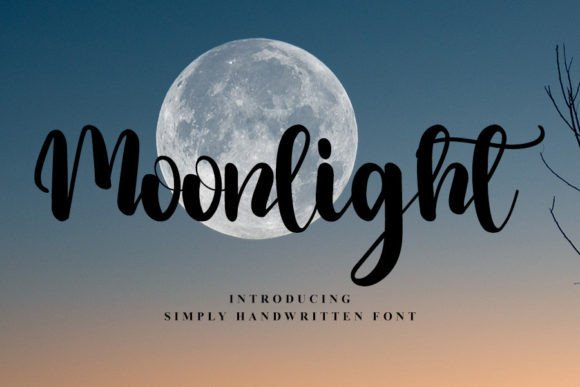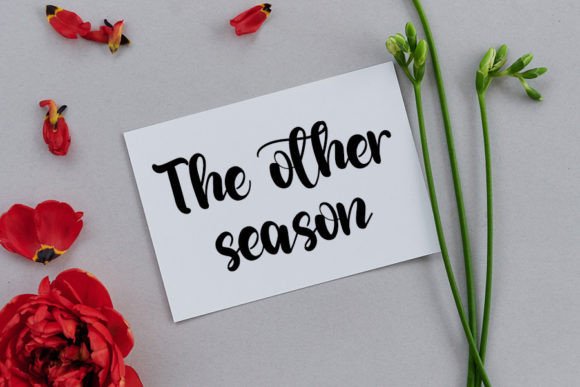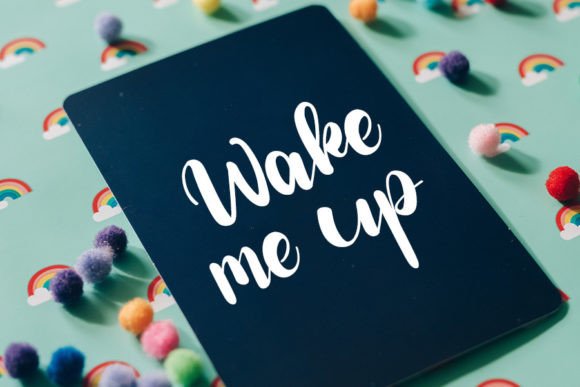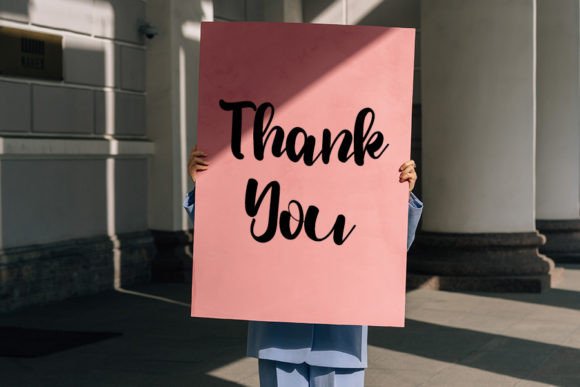
Moonlight Font
About Moonlight Font
A Handwritten Script with Timeless Appeal
The Moonlight font download delivers a stylish handwritten look with elegance and balance. Inspired by classic calligraphy, this font has a contemporary feel that adds sophistication to any creative project. Its strokes are varied and refined, making it suitable for both personal and professional use.
Designed to Enhance Every Project
Moonlight brings charm and clarity to your designs. Use it for wedding invitations, branding materials, product packaging, social media content, and greeting cards. Its well-crafted letterforms give your text a graceful flow, helping your message stand out without losing readability.
Versatile and Easy to Use
Whether you’re working in Canva, Adobe Illustrator, or another design tool, Moonlight font download integrates smoothly. You can pair it with serif or sans-serif fonts to achieve stunning results. Thanks to its well-balanced characters, it adapts beautifully to both formal and playful layouts.